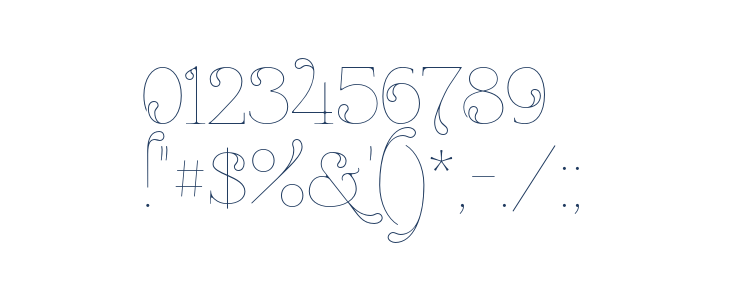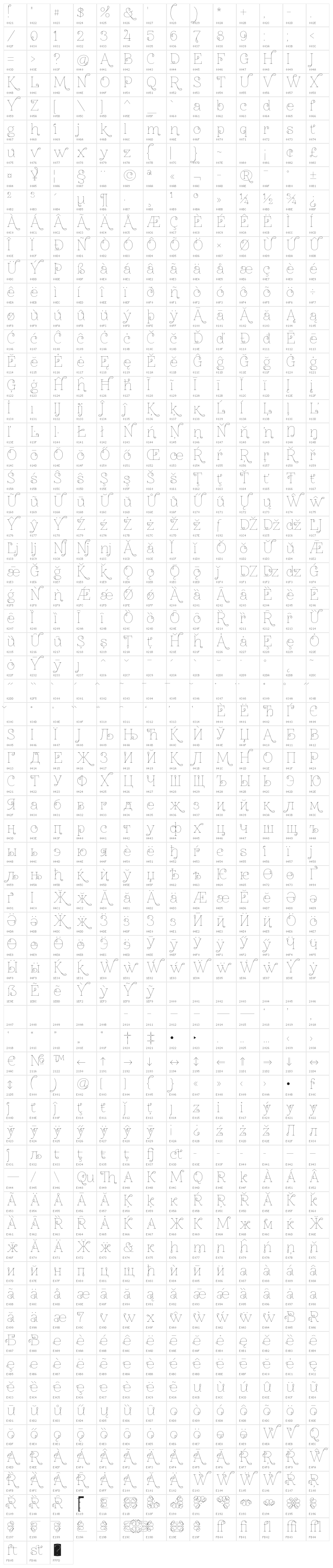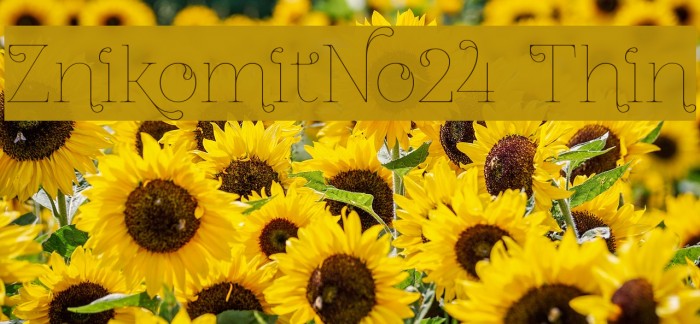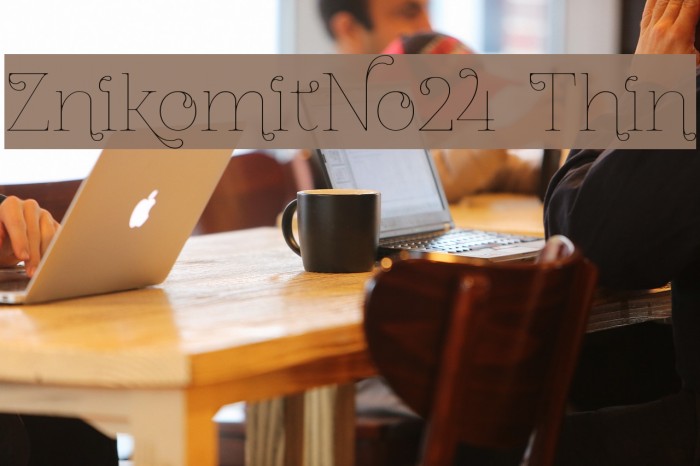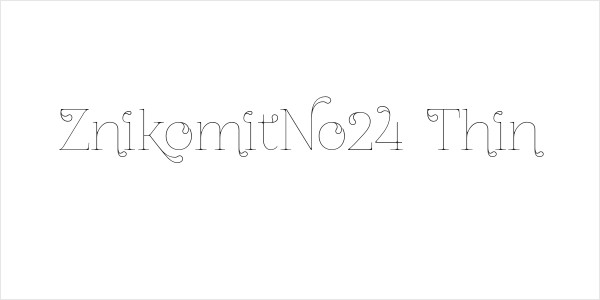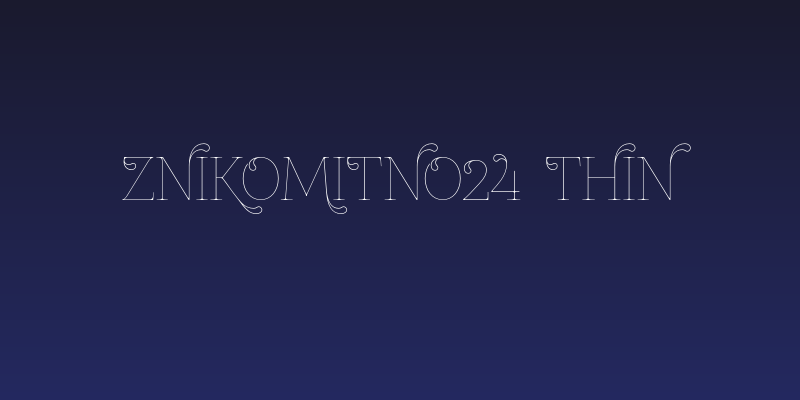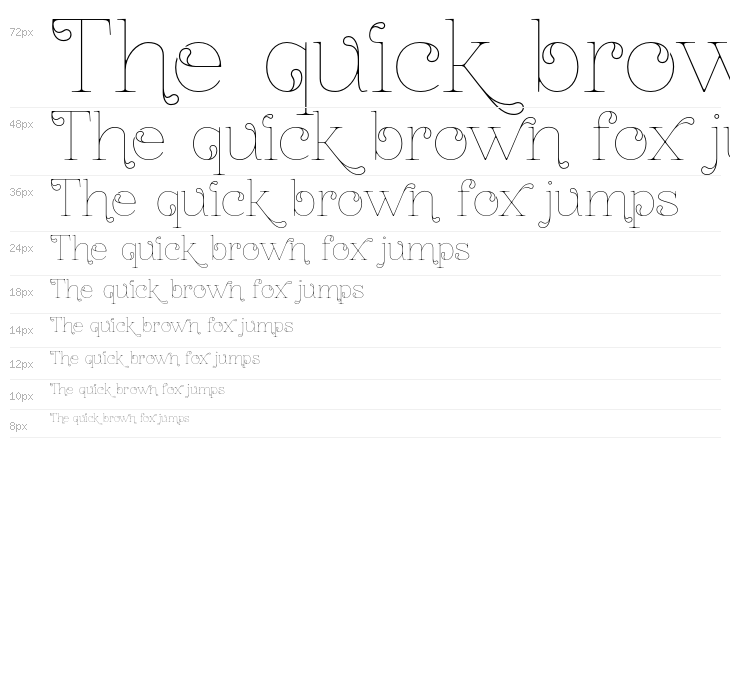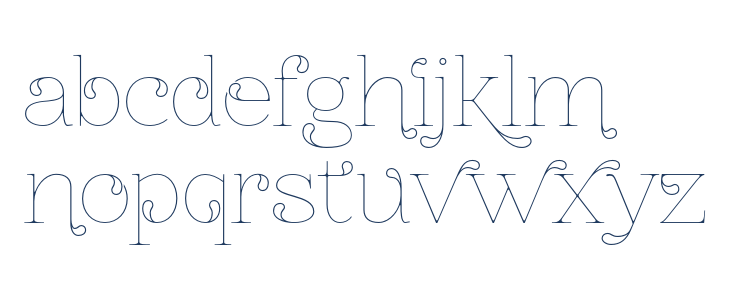
ZnikomitNo24 Thin Font
ZnikomitNo24 Thin Description
This font features a delicate and elegant design with thin strokes and decorative curls, giving it a whimsical and artistic flair. The uppercase letters are adorned with subtle flourishes, while the lowercase letters maintain a more straightforward yet complementary style. The numerals and special characters follow the same aesthetic, incorporating gentle curves and embellishments. This font's overall appearance is both sophisticated and playful, making it suitable for creative and decorative applications. Its thin lines and unique character shapes contribute to a distinctive and memorable visual identity.
| Proposed Projects | Ideal for wedding invitations, greeting cards, artistic posters, and branding materials that require a touch of elegance and creativity. |